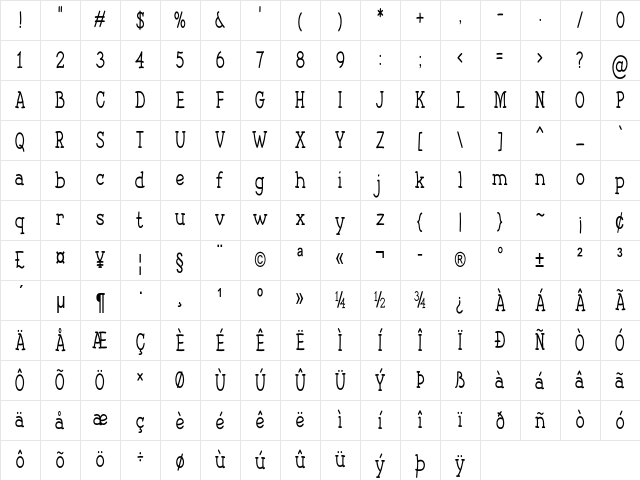
Snacktime Condensed Regular
Style: Condensed Regular
Snacktime Family
Snacktime Condensed Regular
Complete Snacktime Condensed Regular glyph index. Displaying only characters natively supported by Snacktime Condensed Regular font.
Design Context for Snacktime
Snacktime is a composed and adaptable typeface that performs quietly and consistently across a wide range of design contexts. Its narrow stance lets it pack a punch even in space-constrained designs.